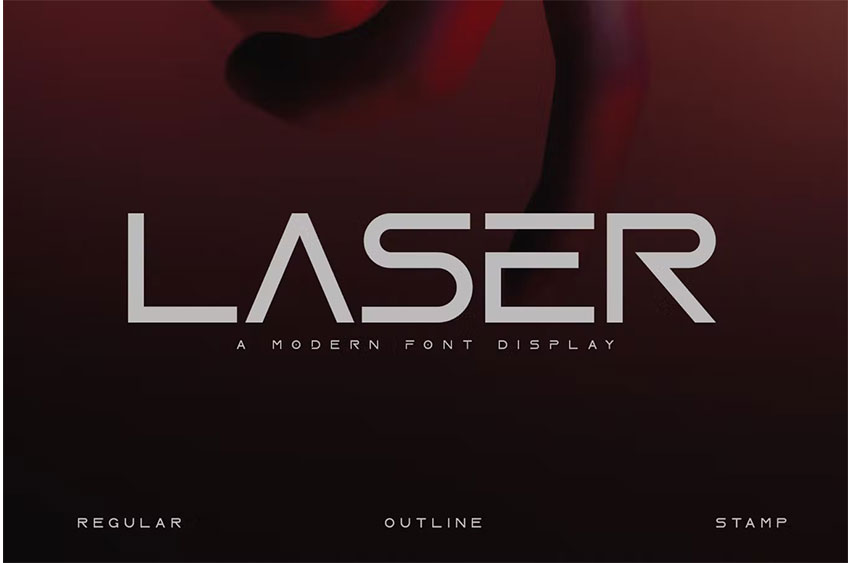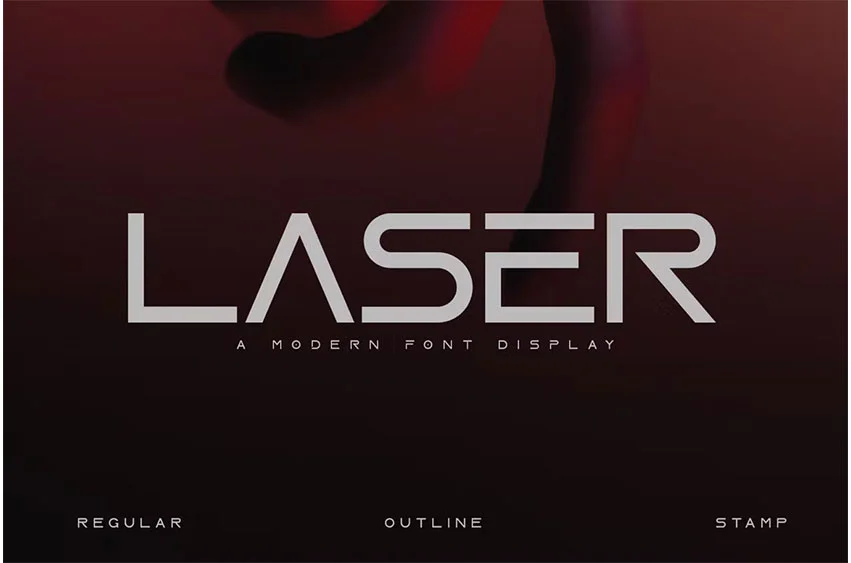
Laser Font
Laser Font was specially designed with san serif type gives the impression of being clean, modern, and extremely elegant. This font would be perfectly used as a name card, poster, logo, magazine, cover, banner, T-shirt and headers, or even large-scale artwork. The Laser has 3 variants namely: Regular, Outliner, and Stamp style.